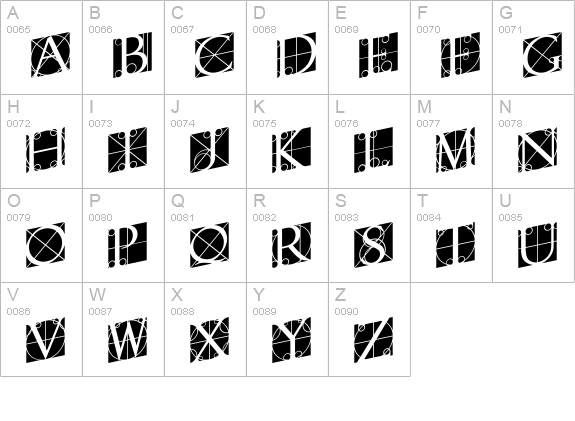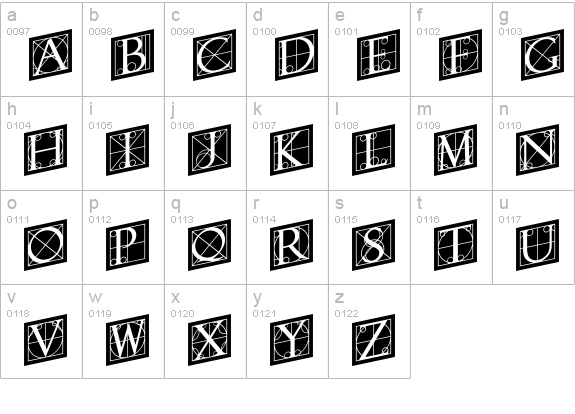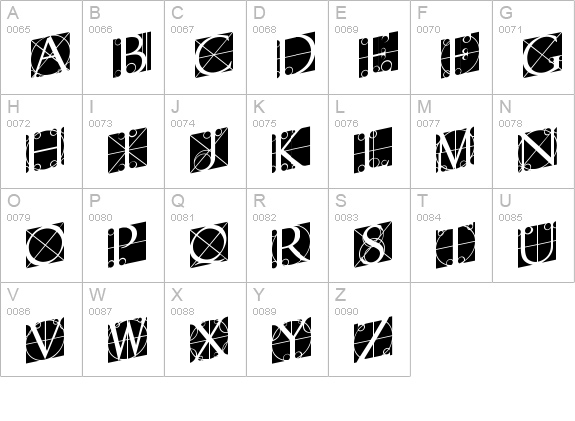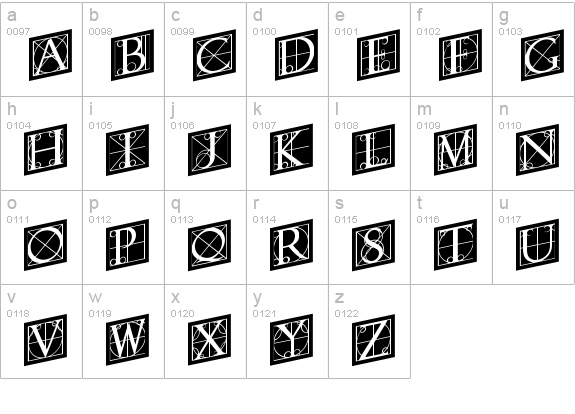
RodgauerTwo Font Details
RodgauerTwo is a stylish and versatile font that exudes a sense of modern elegance. Its sleek lines and geometric shapes give it a contemporary feel, making it perfect for a wide range of design projects. Whether you're creating a logo, branding materials, or website design, RodgauerTwo is sure to make a bold statement. This font is not only visually appealing but also highly functional, with excellent readability even at smaller sizes. Its clean and crisp letterforms make it a great choice for both display and body text. And the best part? RodgauerTwo is completely free to download at FontsMarket.com. Now you can elevate your design projects with this sophisticated font without breaking the bank. Don't miss out on this fantastic opportunity to add RodgauerTwo to your font collection today!